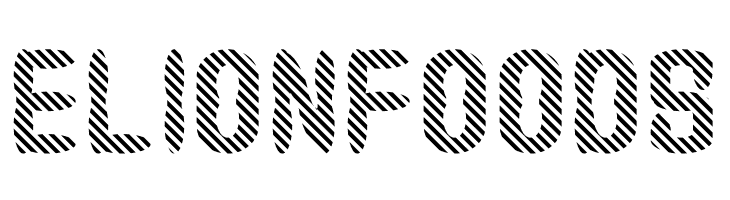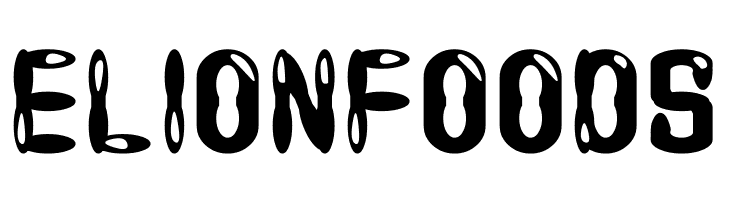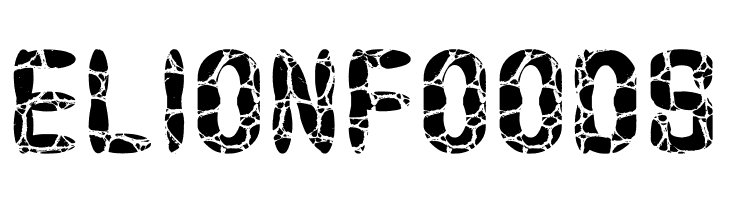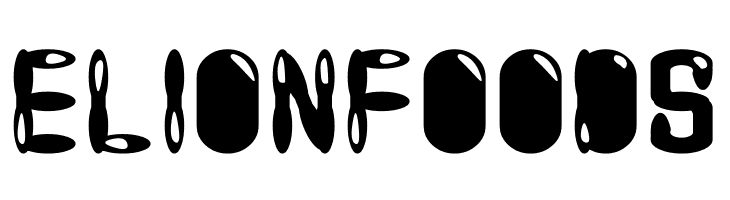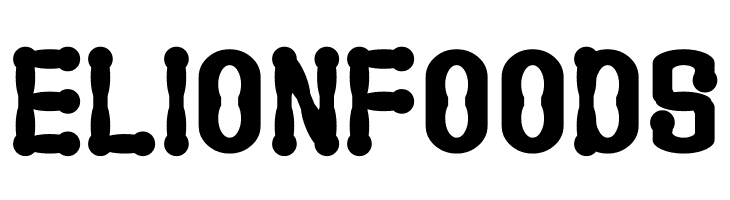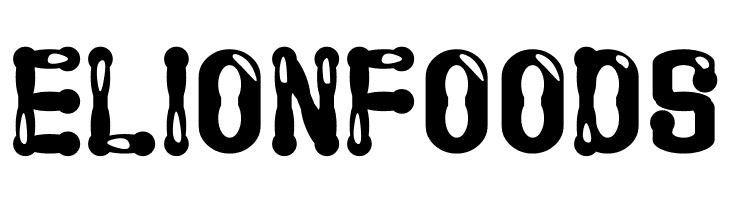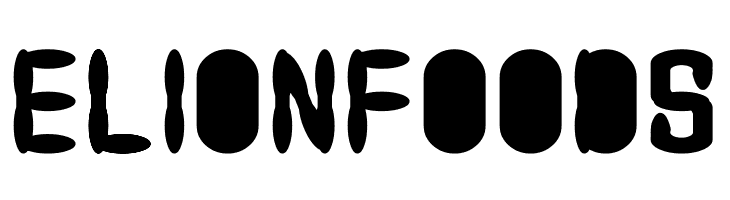
A bold, playful font with rounded, bubbly characters.
A bold, playful font with thick, rounded strokes and a whimsical style.
A bold, cracked texture font with a fragmented, distressed appearance.
A bold, striped font with a modern, industrial aesthetic.
A bold, decorative font with diagonal striped patterns for a modern, edgy look.
A bold, playful font with organic, rounded characters.
A bold, playful font with rounded, blob-like characters and a retro vibe.
A bold, playful font with high contrast and organic shapes, ideal for creative projects.
A bold, playful font with organic, blob-like shapes and dynamic character design.
A bold, playful font with organic, blob-like shapes and a fluid, dynamic style.